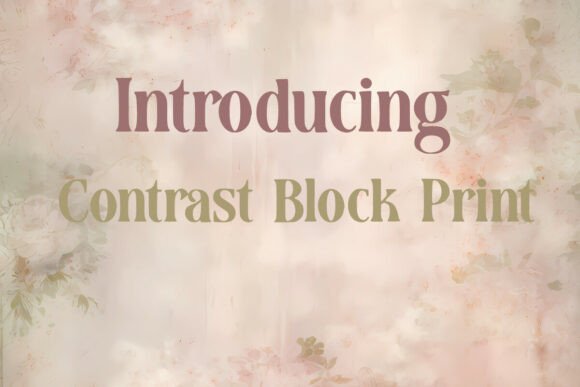
Introducing Contrast Block Print: Elevate Your Designs with a Striking Font
In the world of design, fonts play a pivotal role in conveying messages, evoking emotions, and creating lasting impressions. For designers, crafters, and businesses looking to make a mark, the right font can be a game-changer. This is where Contrast Block Print comes into play – a unique and versatile font designed to add a touch of sophistication and flair to your creations. Whether you’re working on high-fashion magazines, greeting cards, stickers, shirts, or social media content, Contrast Block Print is your perfect solution for crafting striking impressions.
The Distinctive Character of Contrast Block Print
Contrast Block Print stands out for its distinctive character, which is both visually engaging and highly customizable. This font is not just a tool for conveying messages; it’s an element of design that can elevate your projects from ordinary to extraordinary. Its block print style, combined with contrasting elements, gives it a unique aesthetic that can be adapted to various design needs. From the bold and modern to the playful and whimsical, Contrast Block Print can be the centerpiece of your design.
Versatility Across Various Projects
One of the key benefits of Contrast Block Print is its versatility. This font can seamlessly integrate into a wide range of projects, including:
- Fashion and Branding: Use Contrast Block Print in high-fashion magazines, branding statements, and product packaging to add a touch of elegance and sophistication.
- Stationery and Greeting Cards: Add a personal touch to your greeting cards, invitations, and stationery with this unique font.
- Stickers and Decals: Create eye-catching stickers and decals for promotional purposes or personal use.
- Shirts and Apparel: Design striking t-shirts, hoodies, and other apparel that stands out.
- Social Media Graphics: Elevate your social media game with captivating font-based graphics that draw attention and engagement.
- Cricut Projects: Add an element of sophistication to your Cricut projects, from DIY decorations to personalized gifts.
Working with Contrast Block Print
Contrast Block Print is not just about aesthetics; it’s also about ease of use. This font is compatible with various design tools and software, making it accessible for designers and crafters of all levels. Here are some tips for working with Contrast Block Print:
- Pairing: Experiment with pairing Contrast Block Print with other fonts to create interesting contrasts and hierarchies in your designs.
- Color Schemes: Play with different color schemes to highlight the contrasting elements of the font.
Why Choose Contrast Block Print?
With so many fonts available, why choose Contrast Block Print? Here are a few reasons:
- Uniqueness: Stand out from the crowd with a font that is both distinctive and memorable.
- Versatility: Use Contrast Block Print across various projects and mediums.
- Engagement: Increase engagement on social media and other platforms with eye-catching text.